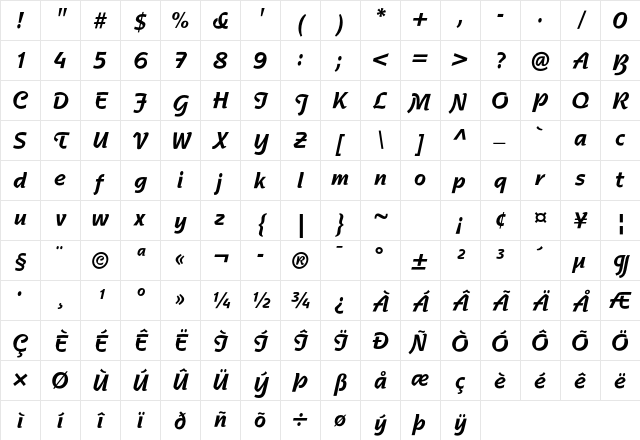
Agfa Nadianne Cond Std Bold
Foundry: Agfa Monotype Corporation
Design Context for Agfa Nadianne Cond Std
Agfa Nadianne Cond Std is a composed and adaptable typeface that performs quietly and consistently across a wide range of design contexts. Its bold stroke weight gives it real presence on the page. Its narrow stance lets it pack a punch even in space-constrained designs.